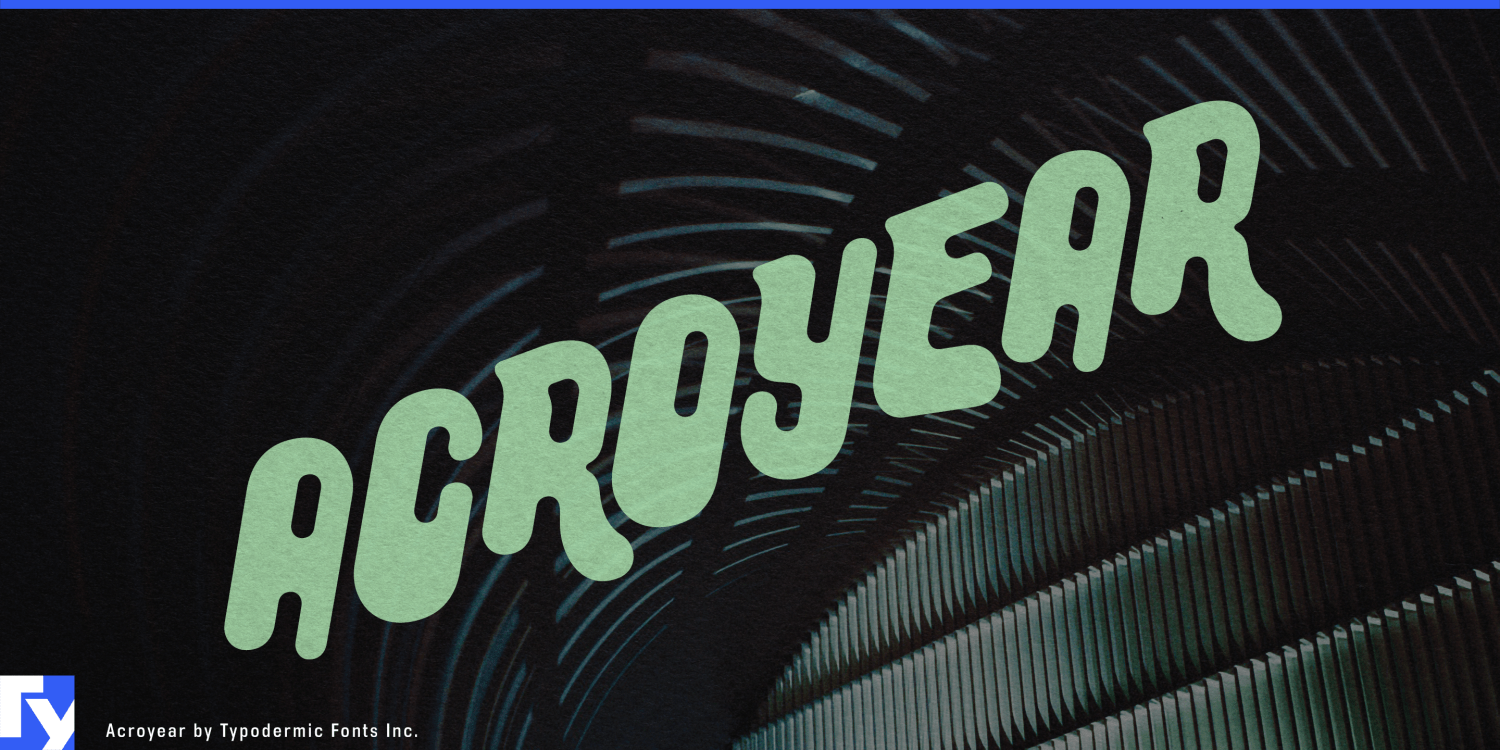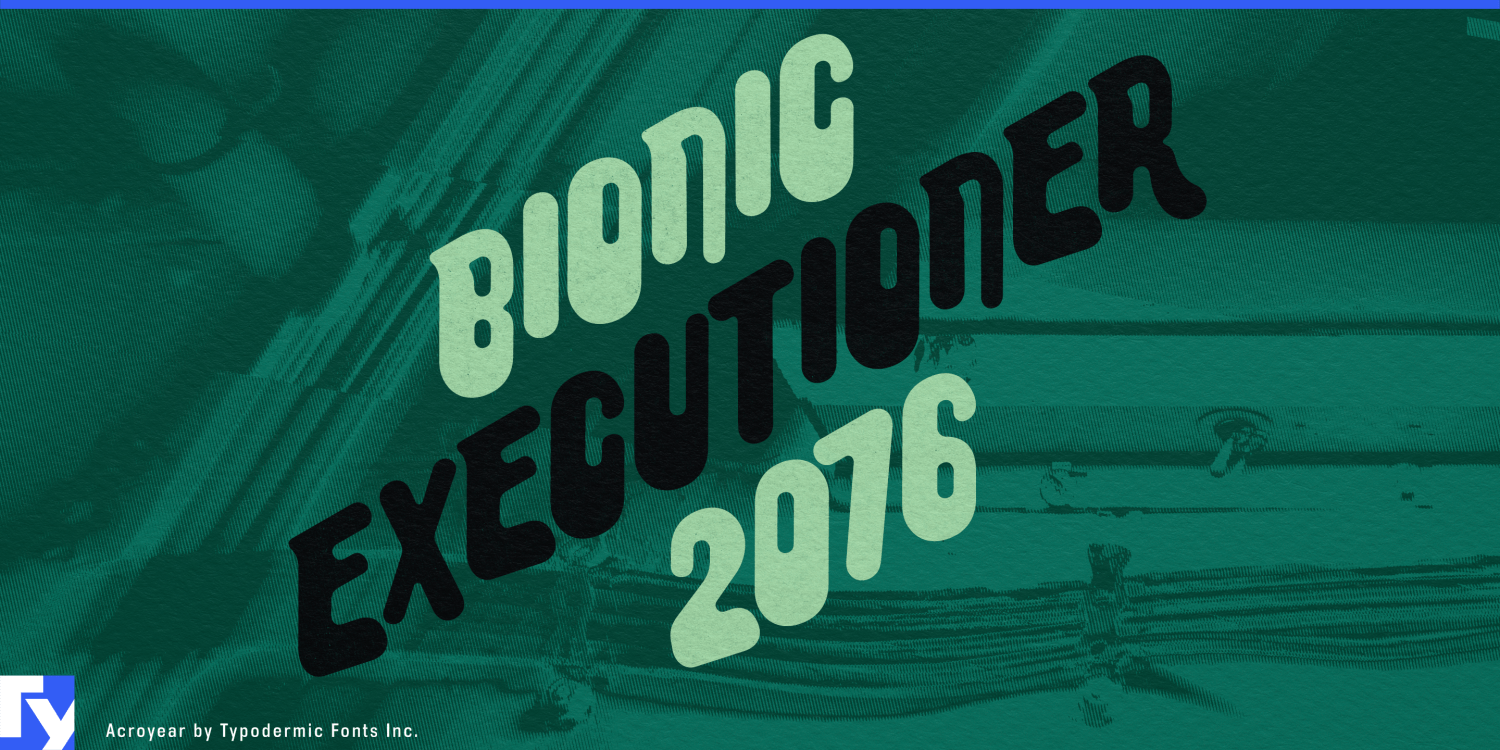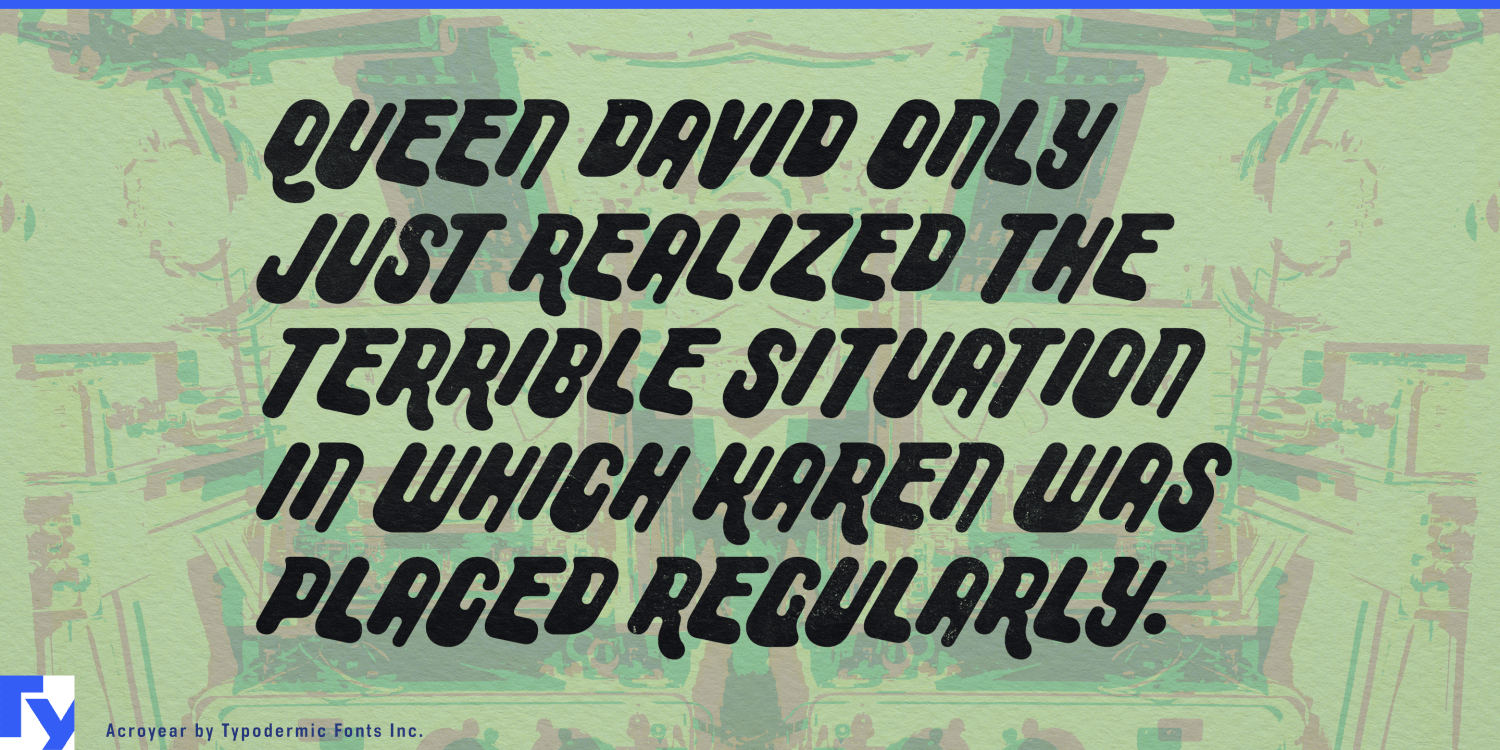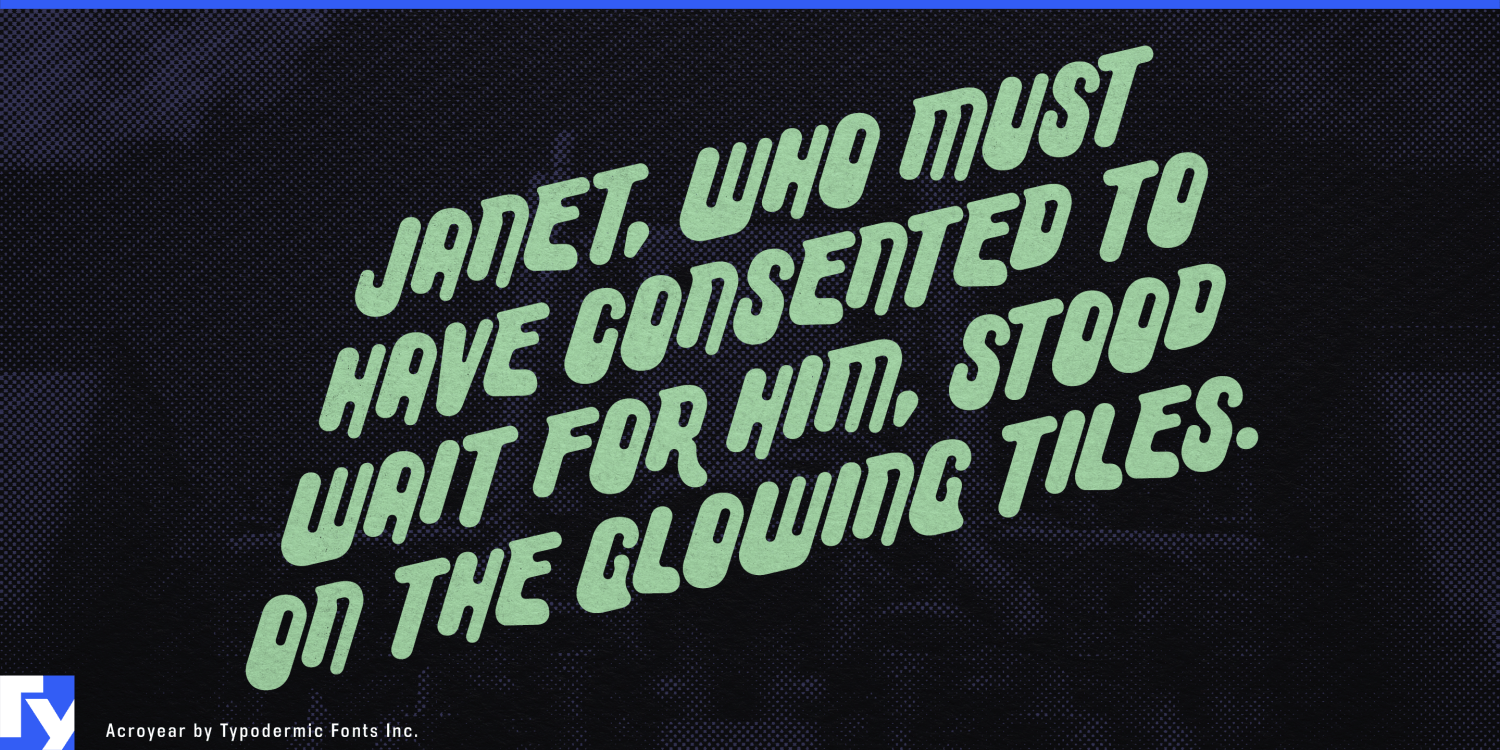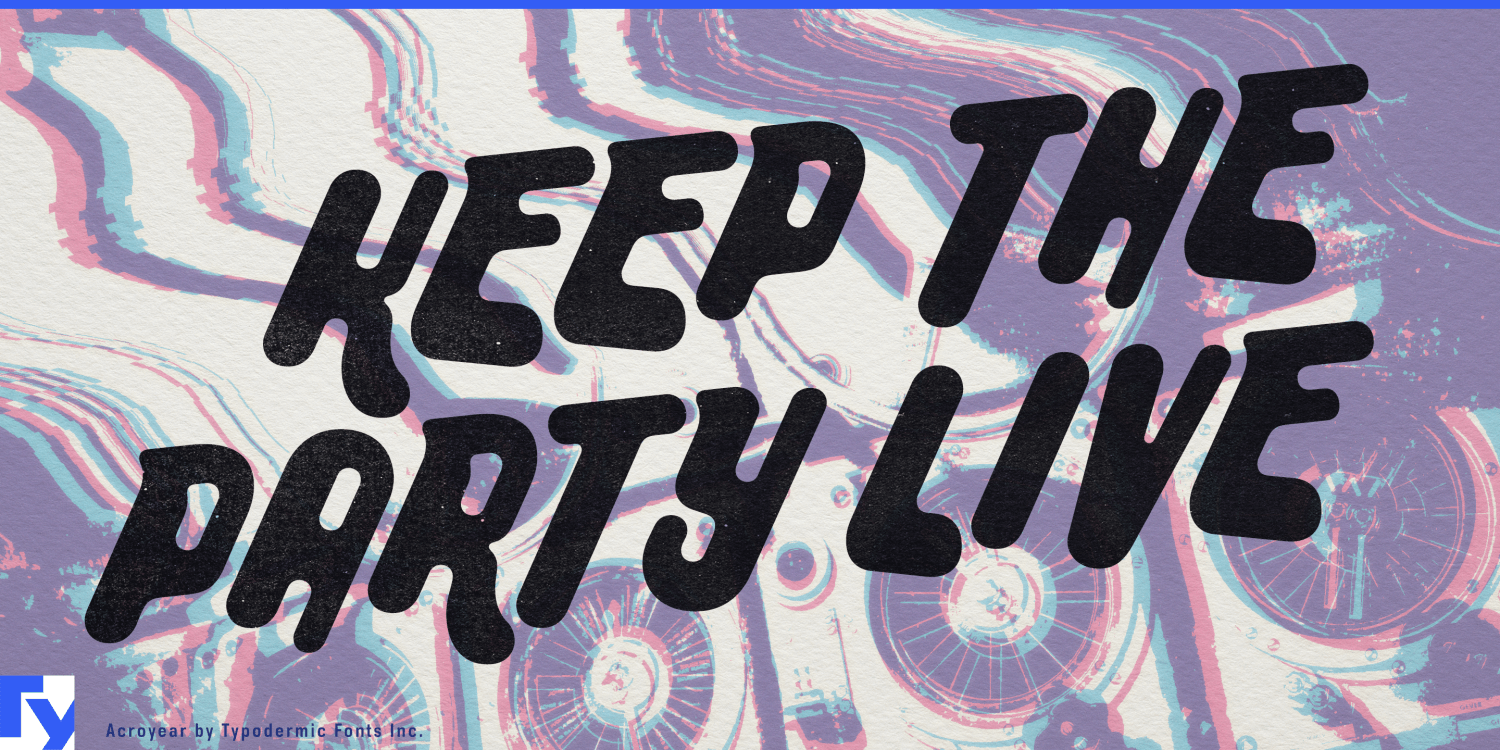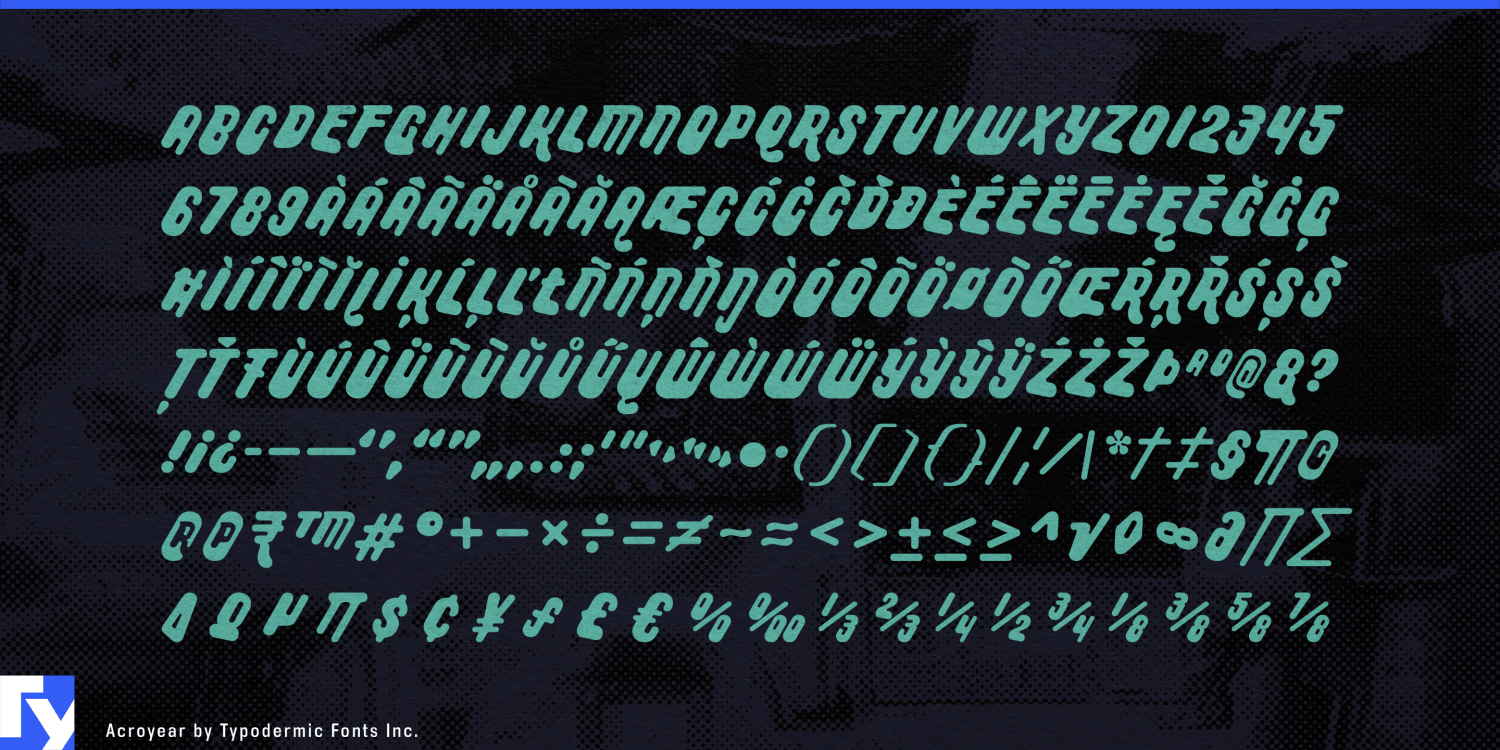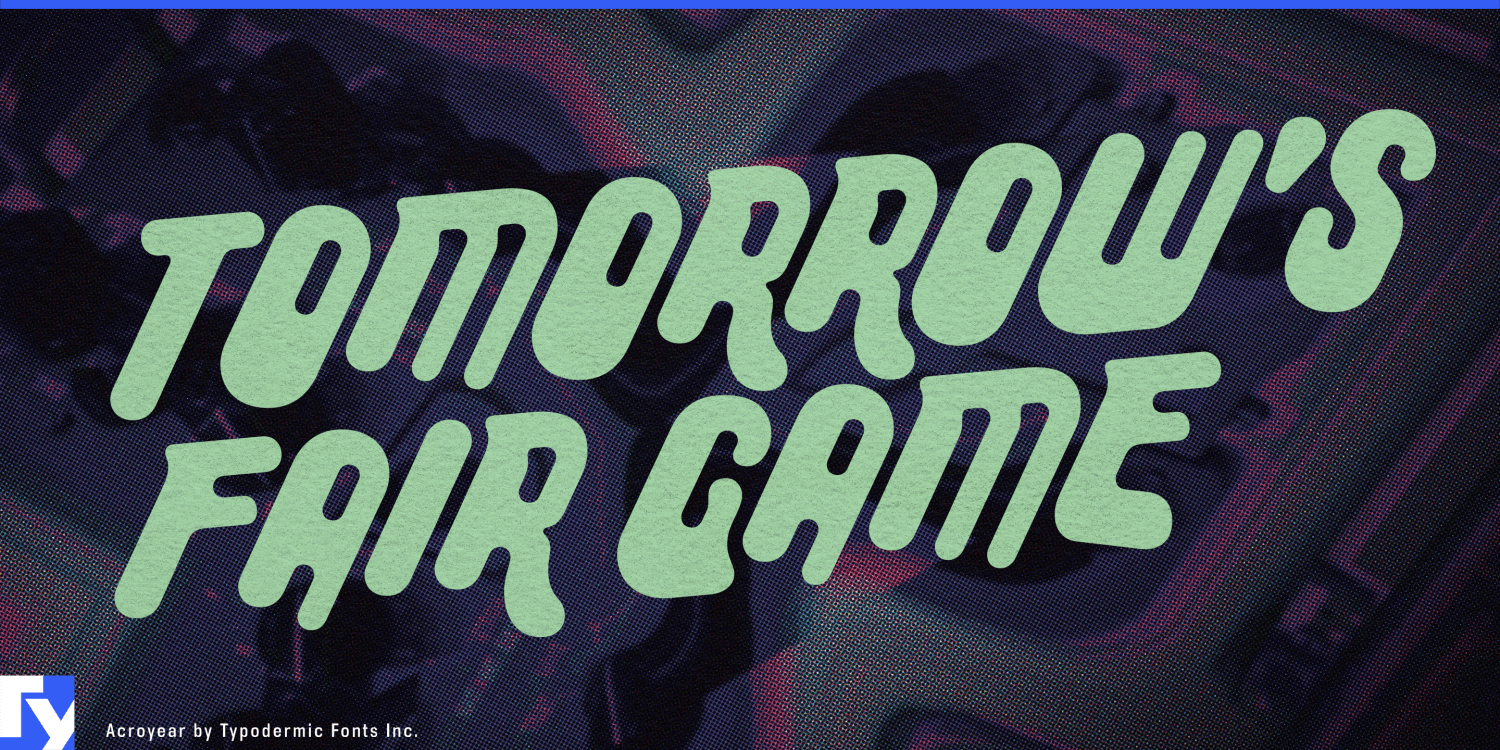
Acroyear
Font Family by Typodermic
Some rounded display faces simply soften conventional letterforms. Acroyear behaves more like a set of inflated modules. Its thick, capsule-like strokes swell into simple geometric shapes, and when the lettering climbs or tilts through a composition, those pieces can seem to roll, stack and tumble rather than sit quietly on a baseline.
Inflatable products are a natural fit. Pool floats, lounge furniture, air mattresses, towable water toys and inflatable paddleboards all share the same mixture of simple geometry and soft physical volume. Acroyear can handle product names, model names and package fronts in a way that feels related to the object itself.
Soft-play environments push the connection further. Foam climbing structures, padded tunnels, inflatable obstacle courses, trampoline parks and indoor playgrounds can use Acroyear for zone names, attraction titles and wall graphics. Its rounded construction suits padded surroundings, while the upward movement of the lettering can reinforce ramps, slopes and climbing paths.
The same quality works for inflatable kayaks, camping mattresses, beach gear and other recreational products aimed at adults. Short model names and product-series lettering can feel soft-bodied without becoming childish. Capsule vending offers another compact use; machine headers and series names can exploit the font’s pill-like shapes and tumbling rhythm.
Acroyear is strongest when lettering is allowed to behave like an object: a soft module, an inflated form or a piece moving through the composition. Inflatable products, soft-play systems and recreational equipment all give that unusual motion somewhere useful to go.